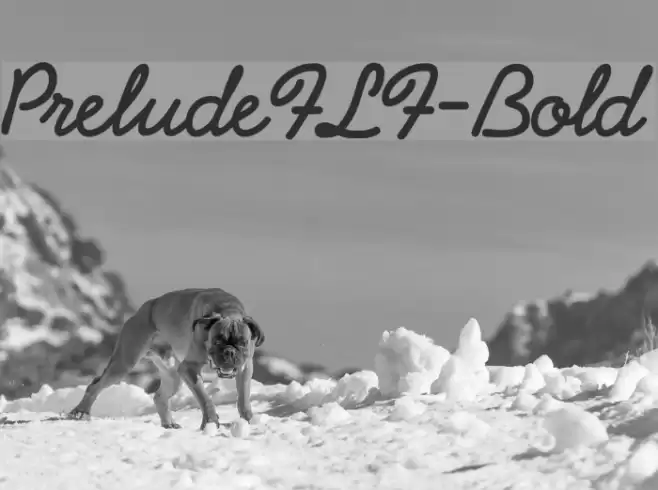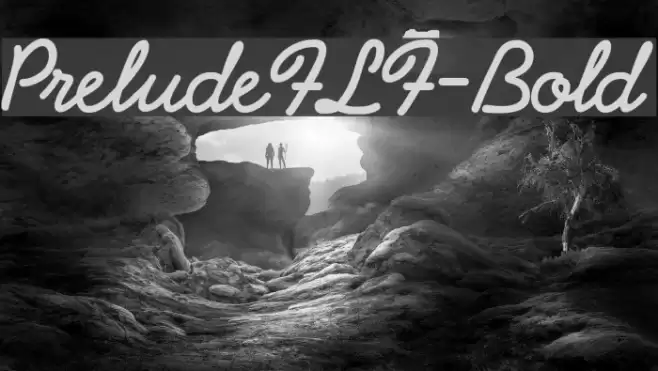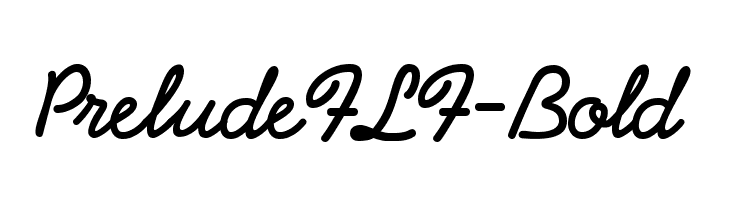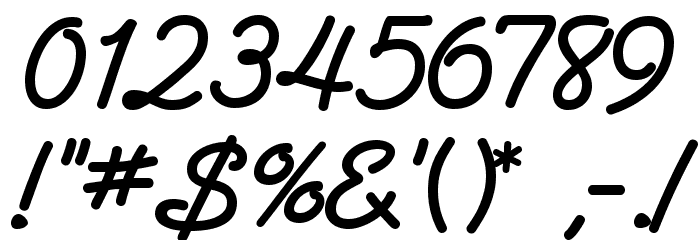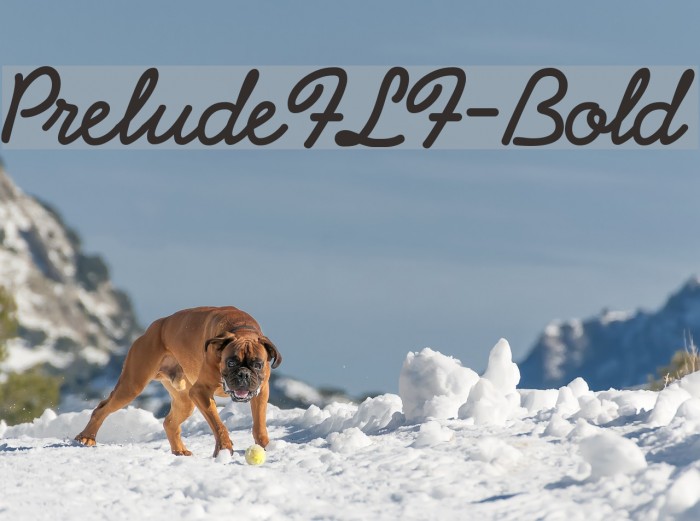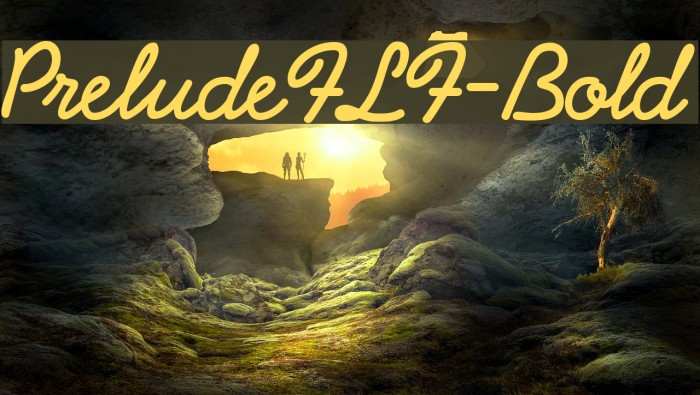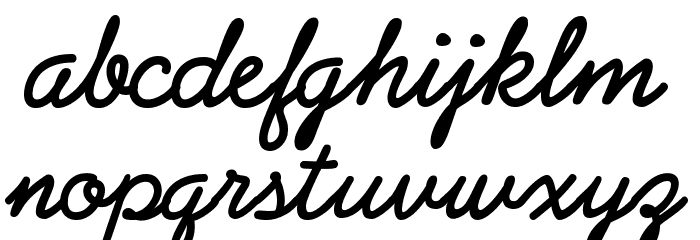
PreludeFLF-Bold Font
PreludeFLF-Bold Description
This font exudes a bold and dynamic script style, characterized by its flowing, cursive letterforms that mimic the fluidity of handwriting. The uppercase and lowercase letters are designed with a consistent stroke weight, providing a harmonious and cohesive appearance. The numerals and special characters maintain the same stylistic approach, ensuring uniformity across all glyphs. The font's boldness enhances its legibility, making it suitable for impactful designs. Its playful yet elegant nature makes it versatile for various creative applications.
A bold, cursive script font with fluid, handwritten-style letterforms from Calligraphic fonts.
- Proposed Projects: Ideal for branding, invitations, greeting cards, and creative headlines.
- Overall Style: Decorative
- Use Case: Logos, Headlines, Invitations